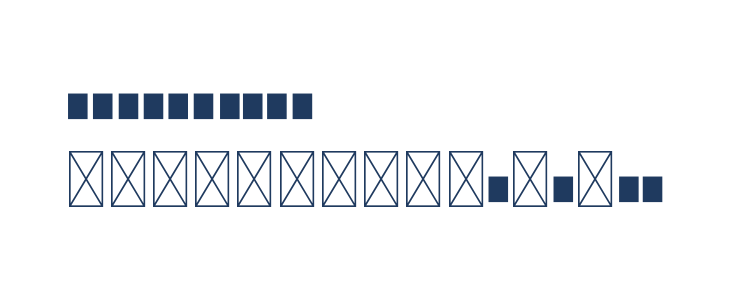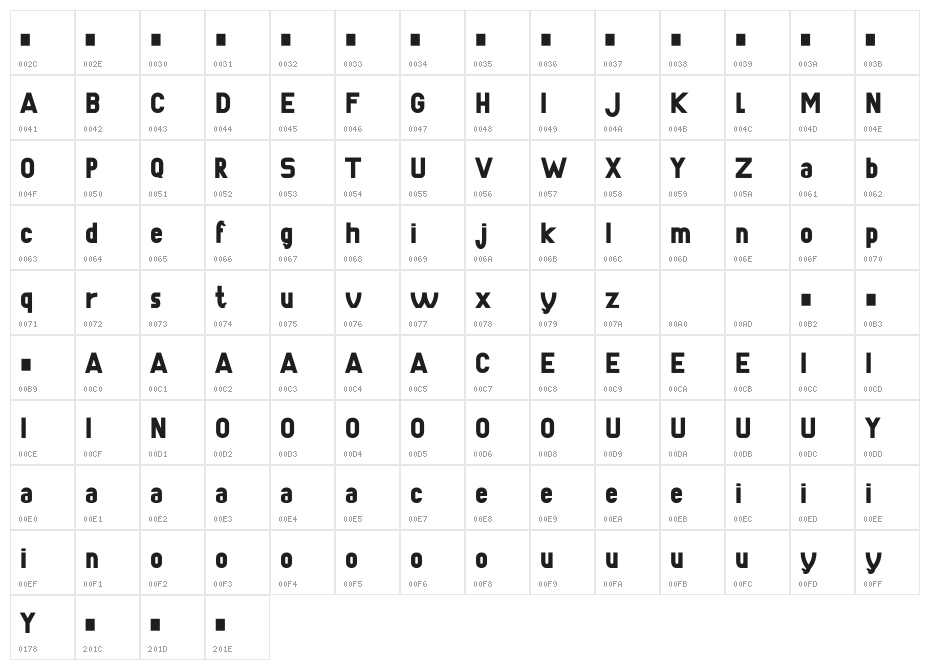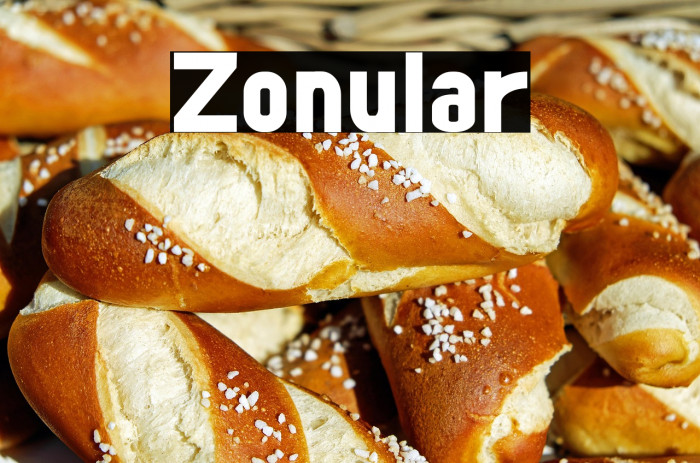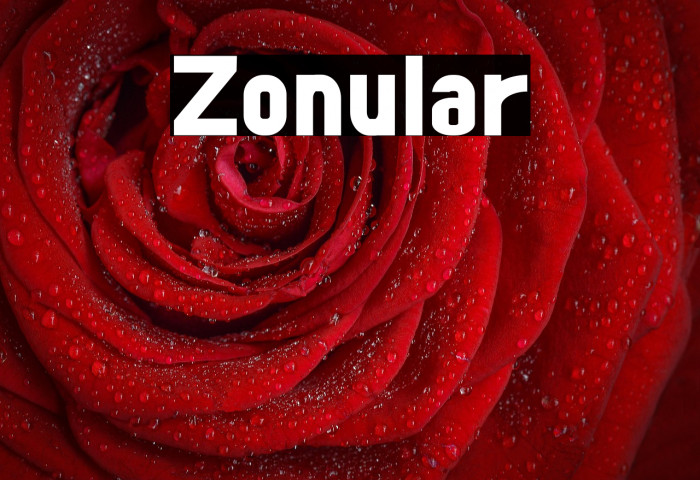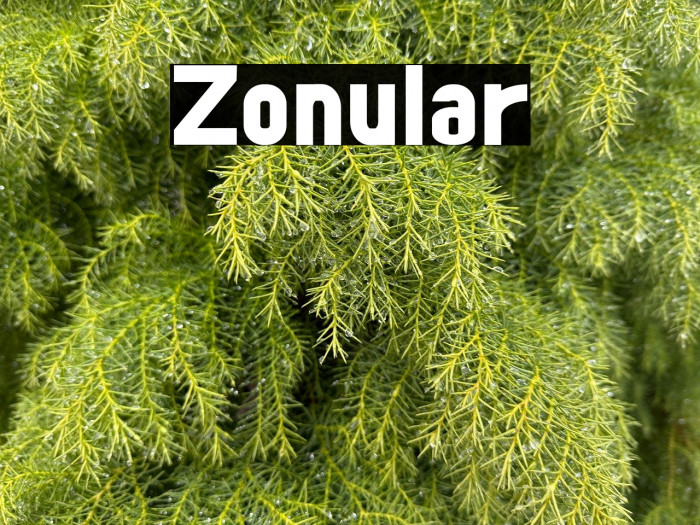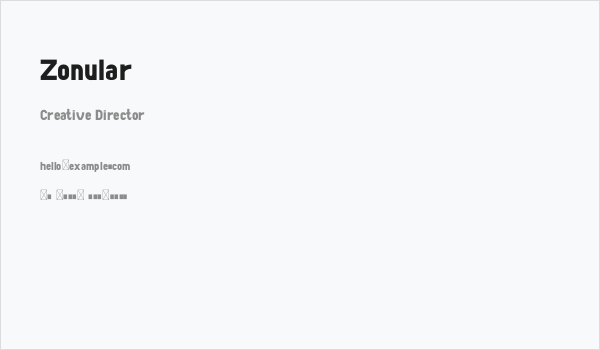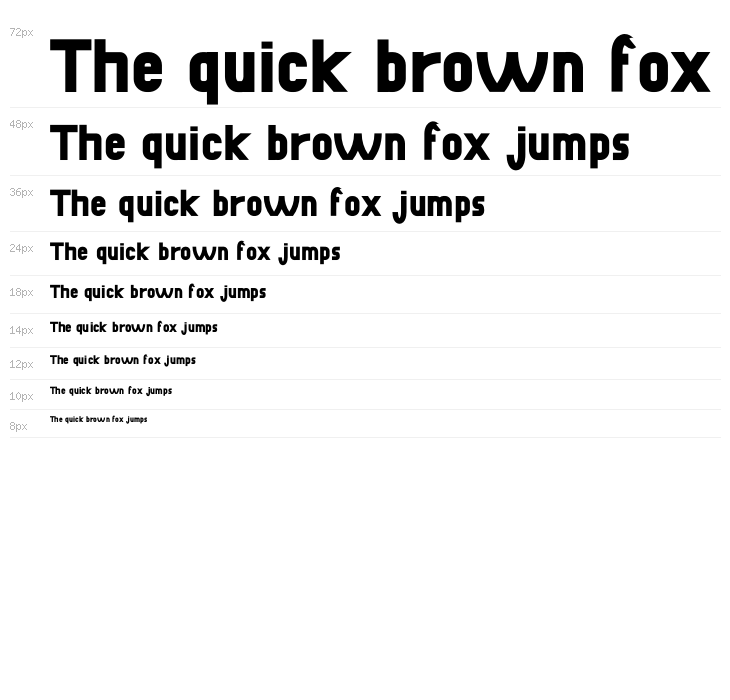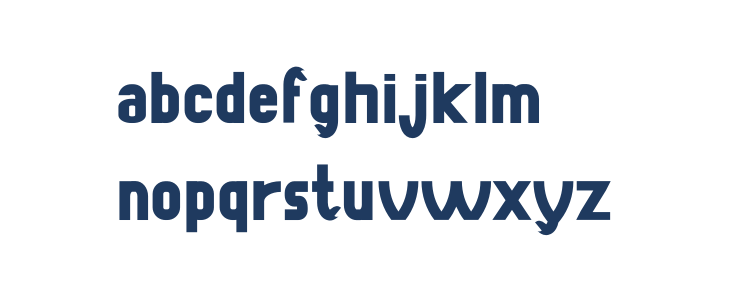
Zonular Font
Zonular Description
This font features a bold and geometric design with strong, angular lines and a modern aesthetic. The uppercase letters are characterized by their blocky and robust appearance, while the lowercase letters maintain a similar structure with slightly softer edges. The numerals are consistent with the overall bold style, ensuring readability and impact. The special characters are designed to complement the alphabet, maintaining the same bold and geometric style. This font is well-suited for projects that require a strong visual presence and a contemporary feel.
ZONULAR
| Proposed Projects | Ideal for branding, posters, headlines, and any design requiring a strong visual impact. |